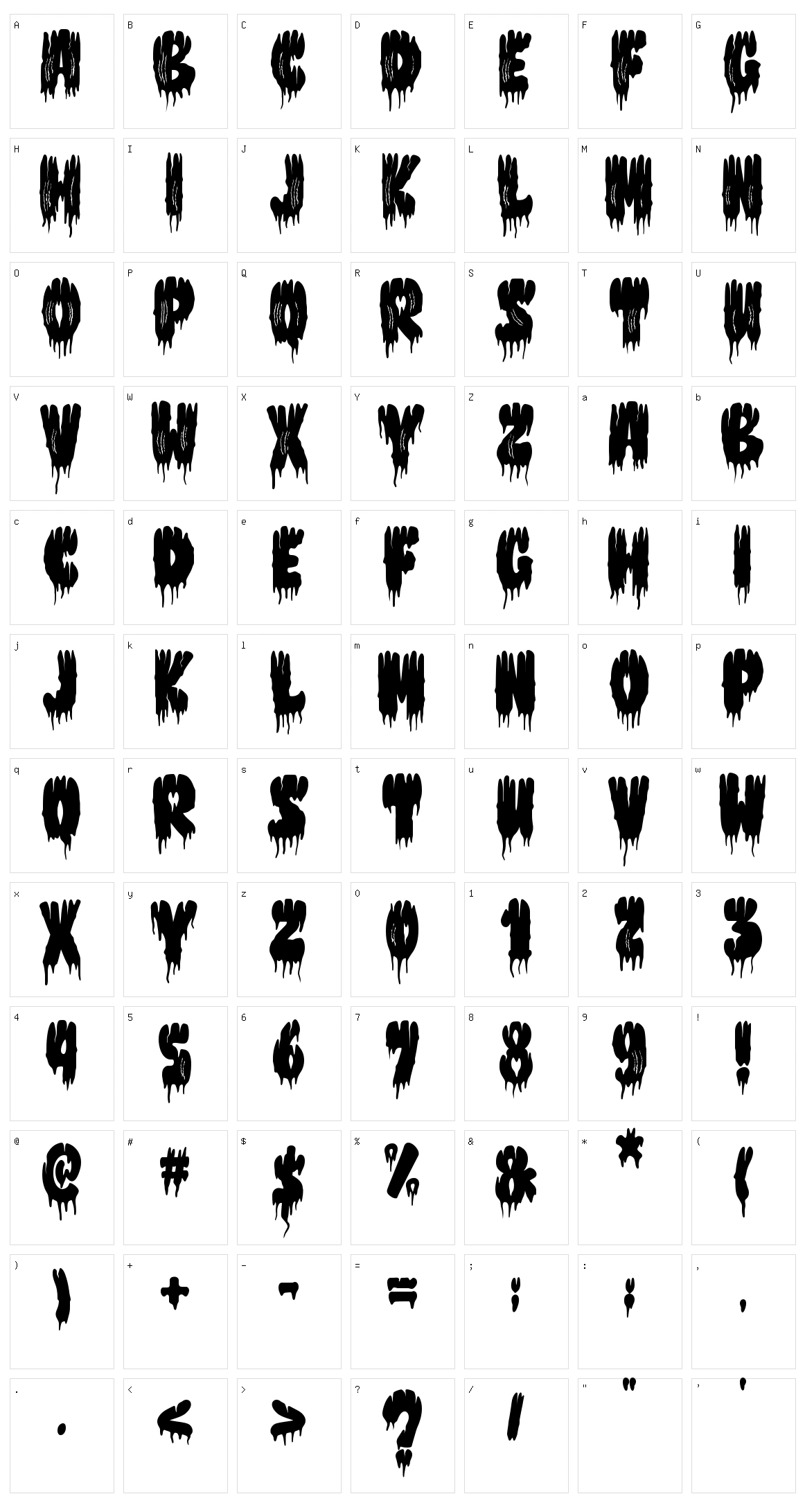
The free font Monster Scratch is carefully designed by Letterara, showcasing a thoughtful balance of creativity and usability and falls under the Halloween font style. When you download the ZIP file, it contains only 213.43 KB of font files, making it lightweight and quick to download. Please review the license details below to understand permitted usage and distribution rights. If license information is not available, we recommend using this font for personal projects only or contacting the author directly for commercial usage permissions.